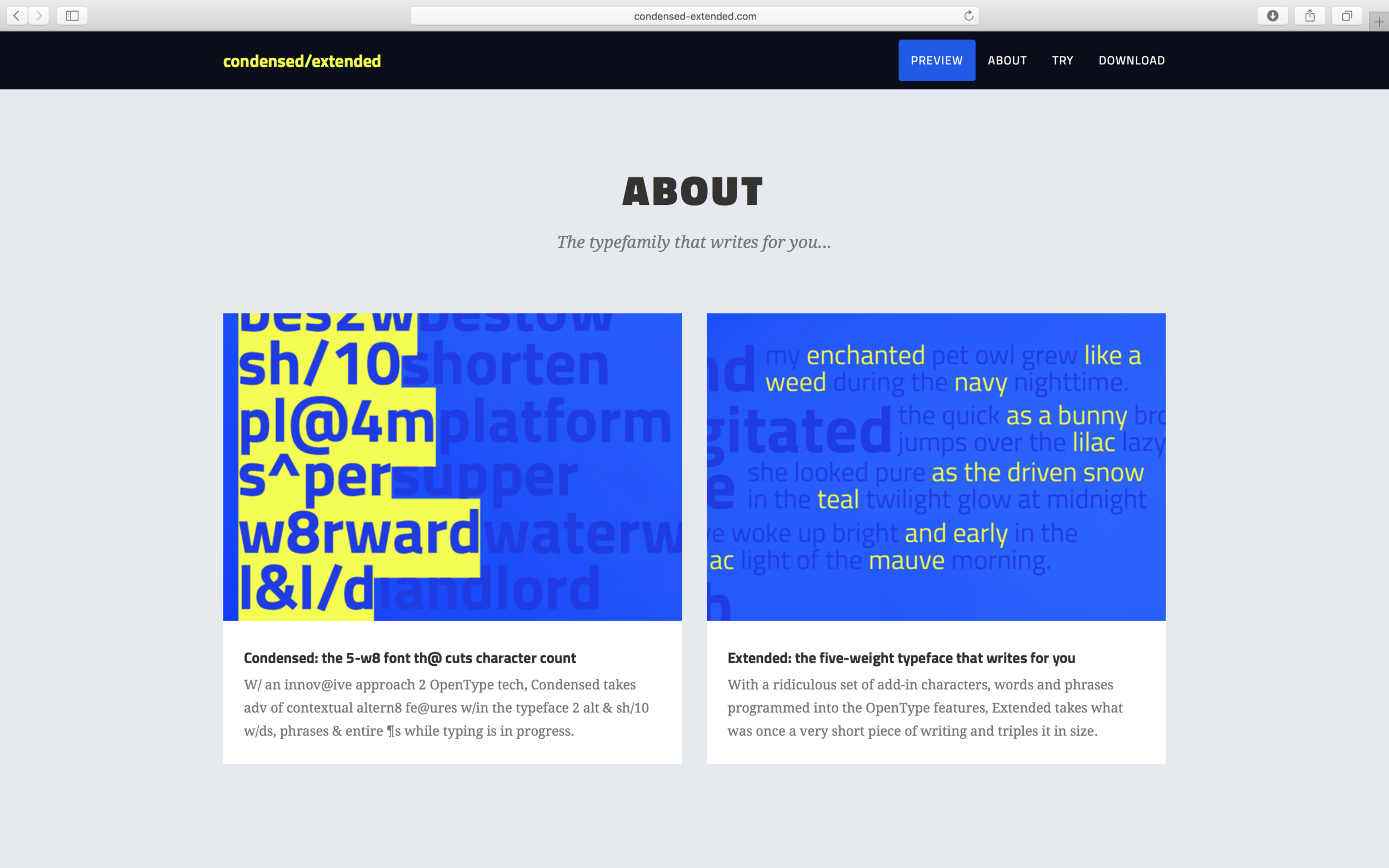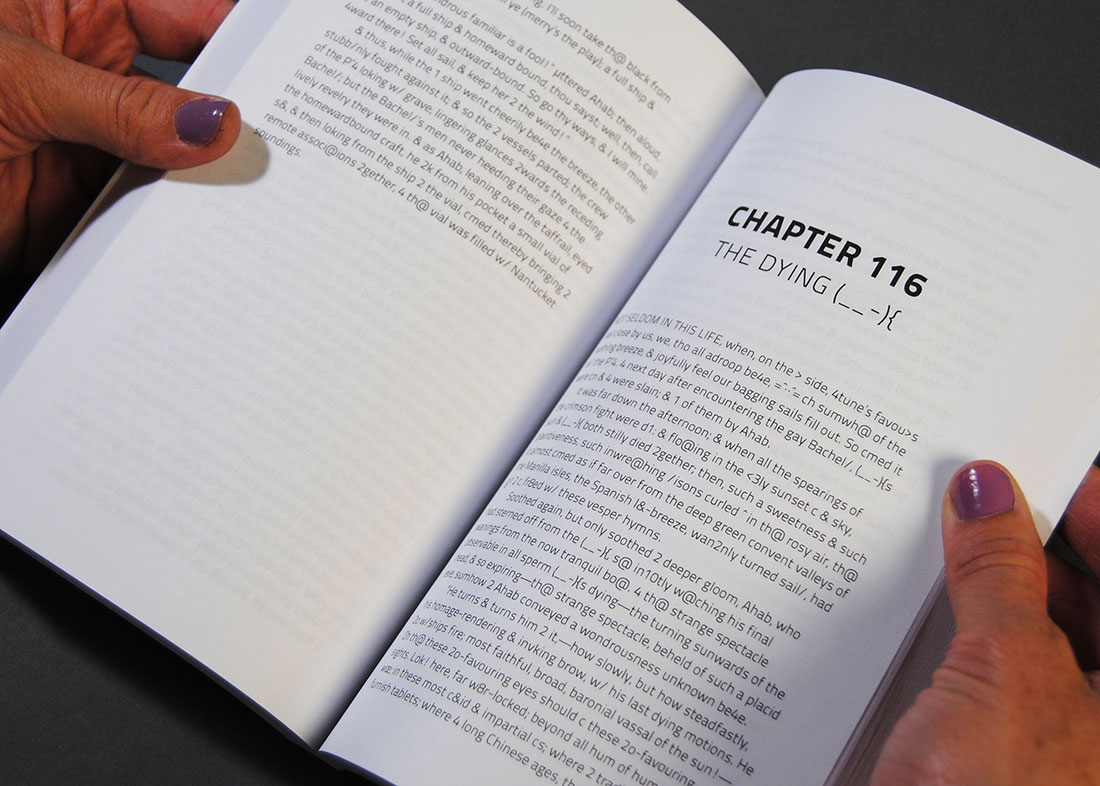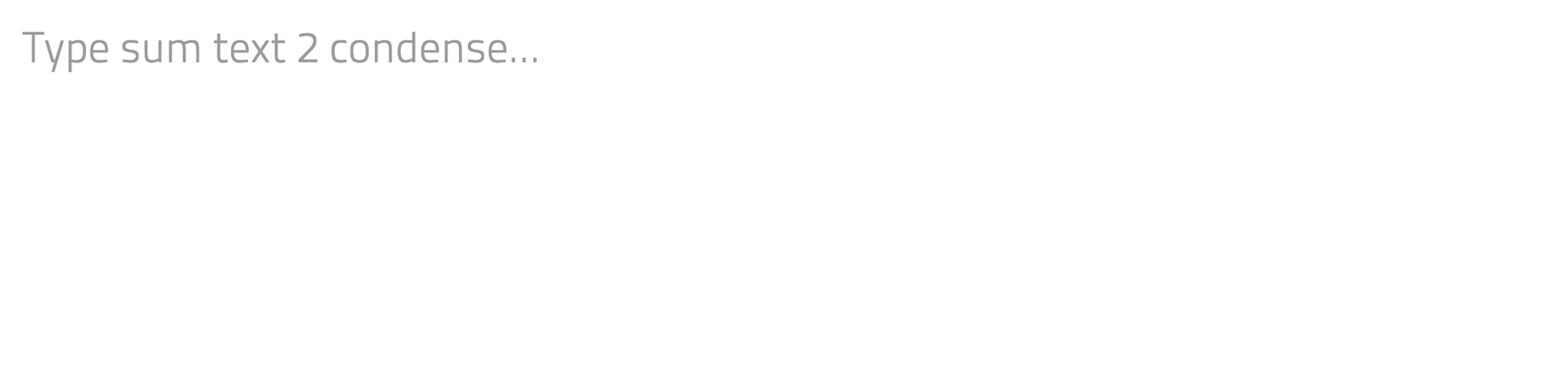
Condensed/Extended
A typeface that writes for you.
Condensed typeface cuts character count.
Extended adds helpful adjectives and cliches.
On condensed-extended.com, users can learn about the project, view the type specimen and try out the font for themselves.
Condensed/Extended leverages features within OpenType code to cut or increase character count as you’re typing.
The project is built on Titillium Text, which is an OFL licensed open-source typeface by Campus Visivi.
Condensed/Extended In Action
Condensed Moby 8==D
One of two type specimens printed to show off various features embedded into the typeface.